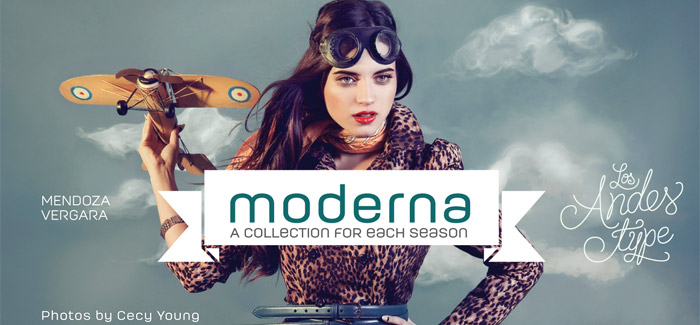
Moderna Unicase Medium free font
Moderna Unicase Medium free font is a sans serif inspired by simplicity of Modernism. Its neutral and cleanconstruction has been specially designed for short texts, headlines, logos and branding.
Moderna Unicase Medium free font is a part of Moderna family. With sixteen variants including unicase version, some alternate characters, arrows and labels.